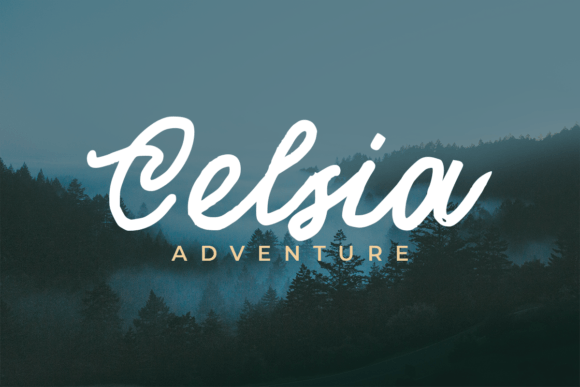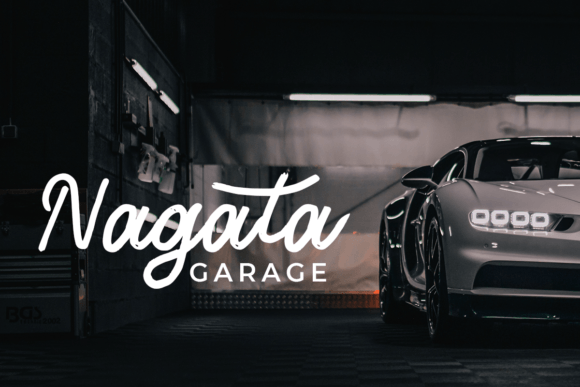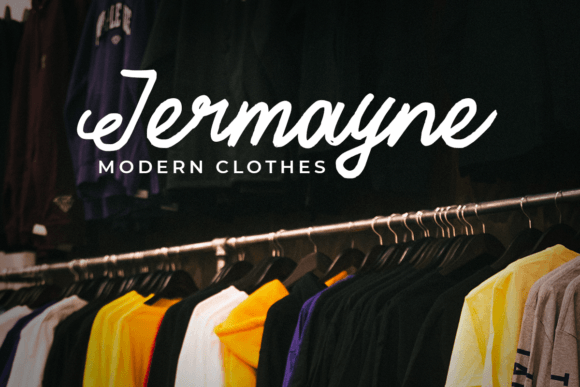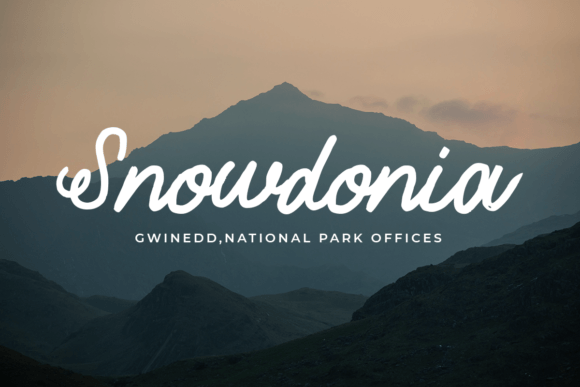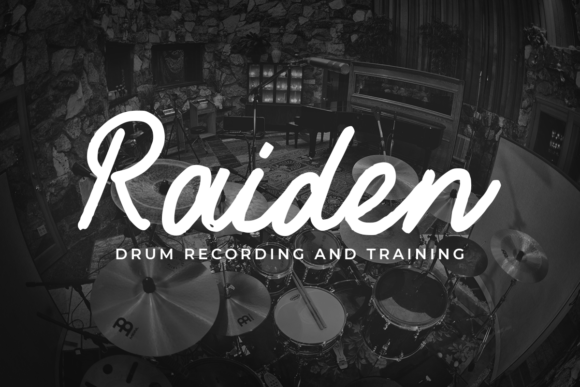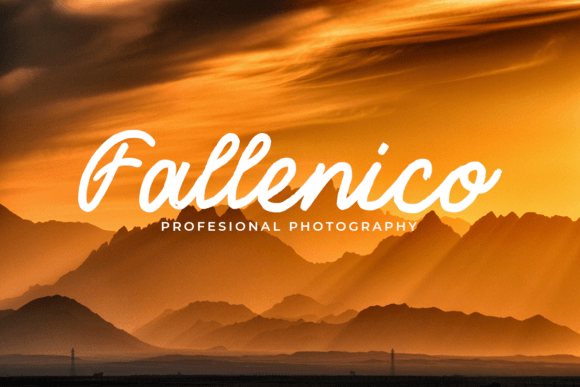
Introduction to Mohart Font
As a designer, there’s nothing quite like the thrill of discovering a new font that perfectly captures the essence of a creative project. It’s that moment when all the pieces fall into place, and your design transforms from good to great. For me, that moment came when I stumbled upon the stunning Mohart Font, a stylish and elegant script font that adds a touch of sophistication to any design.
Mohart Font is a valuable resource for designers looking to elevate their work. Its high-quality design makes it perfect for a wide range of applications, from wedding invitations and thank you cards to logos and business cards. With a transparent background, this font is incredibly versatile, allowing designers to layer it with other elements to create unique and eye-catching designs.
Whether you’re working on a free download project or a paid design job, Mohart Font is an essential tool in your design arsenal. Its beautiful handwriting style makes it an ideal choice for designers who want to add a personal touch to their creative projects.
- Unique characteristics include elegant and modern typography, making it ideal for high-end designs.
Honest Review: Mohart Font
I recently had the chance to work with the Mohart Font, and I have to say, I was thoroughly impressed. As a design resource, it’s always exciting to come across a font that truly stands out.
The Mohart Font is a high-quality, versatile font that would be perfect for any creative project. Its clean and modern design makes it suitable for a wide range of applications, from logos to digital signage.
- ⚠️ Limited character set, which may not be ideal for extended text projects.
- ⚠️ May not be suitable for very small font sizes due to its modern design.
Overall, I’m very impressed with the Mohart Font. Its high-quality design and versatility make it a valuable addition to any design library. While it may have some limitations, it’s a great resource for designers looking to add some modern flair to their creative projects.
Mohart Font
The Mohart Font is ideal for a variety of creative projects, including business cards, brochures, and social media graphics. Its transparent background makes it perfect for designing graphics with a transparent or semi-transparent background. Whether you’re a professional designer or a hobbyist, the Mohart Font is a valuable design resource to have in your toolkit.